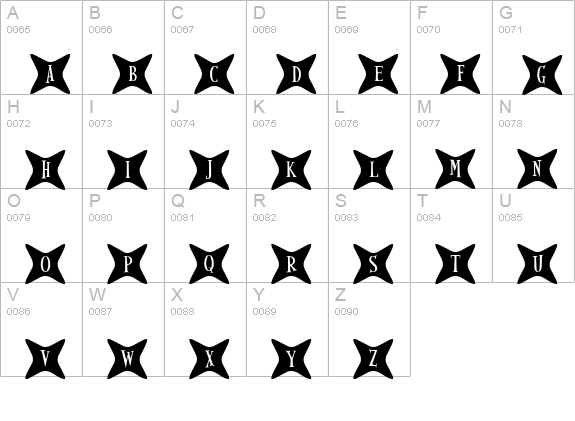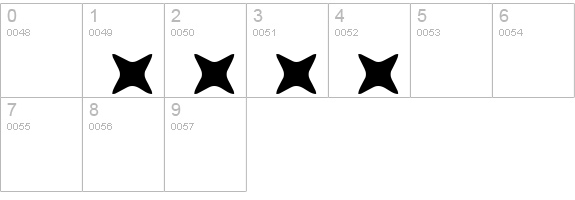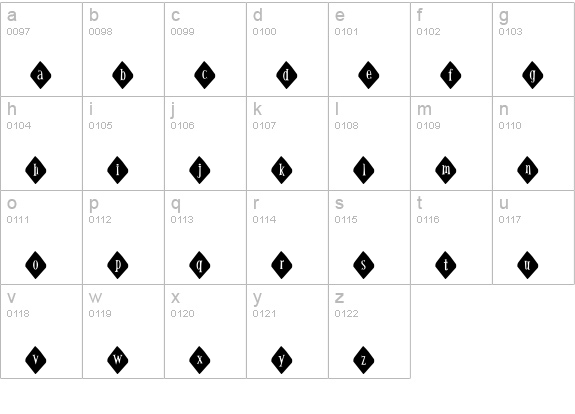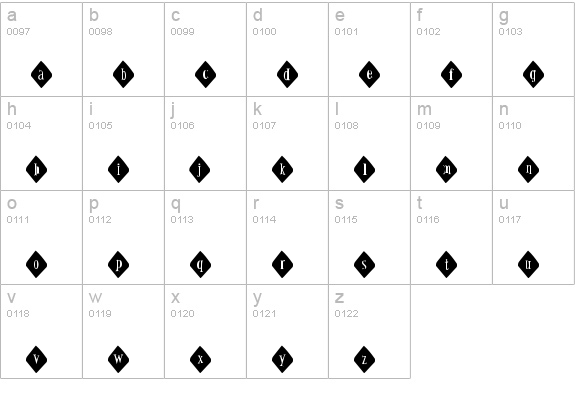
Gyrl Friday Font Details
Gyrl Friday font is a charming and versatile display typeface that exudes a sense of casual sophistication. With its elegant curves and stylish flair, Gyrl Friday is perfect for adding a touch of personality to any design project. This modern and trendy font captures a sense of playfulness and creativity, making it ideal for a wide range of applications, from branding to social media graphics. The best part? Gyrl Friday font is available for free download at FontsMarket.com. This means you can easily add this unique and eye-catching font to your collection without breaking the bank. Whether you're working on a personal project or a client's design, Gyrl Friday font is sure to make a statement and leave a lasting impression. So why wait? Download Gyrl Friday font today and let your creativity shine!